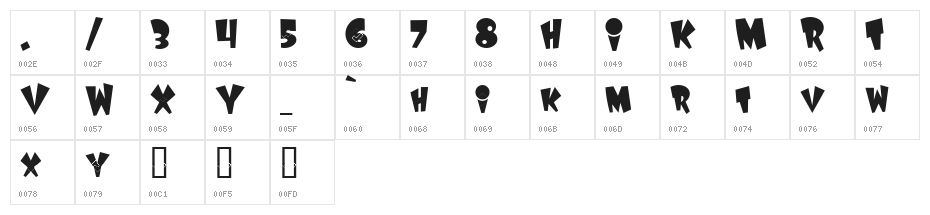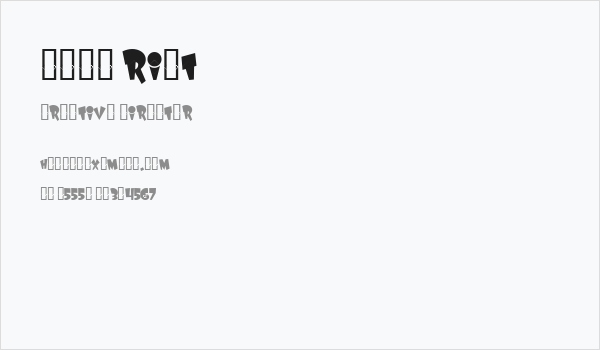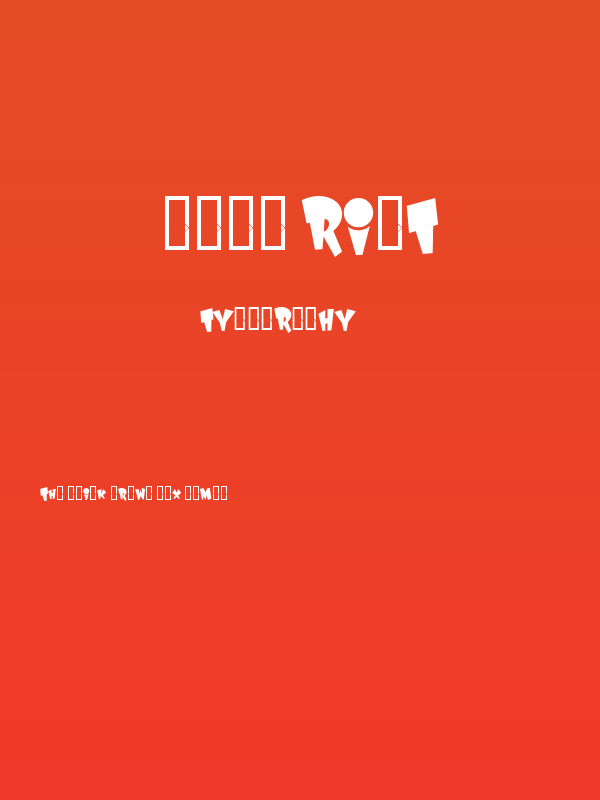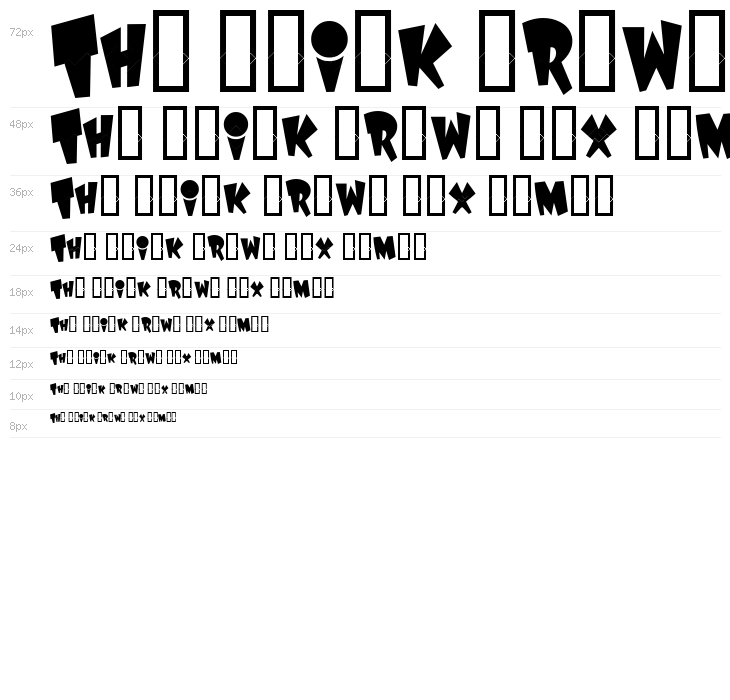
Laff Riot Font
Laff Riot Description
This font features bold, exaggerated characters with a playful and whimsical style. The letters are highly stylized with uneven strokes and varying widths, giving them a cartoonish and dynamic appearance. The overall design is bold and eye-catching, making it suitable for projects that require a fun and lively aesthetic. The characters are tightly spaced, enhancing the energetic feel of the font. The numbers and special characters maintain the same playful style, ensuring consistency across all elements.
| Overall Style | Playful, Cartoonish |
| Proposed Projects | Ideal for children's books, comic strips, party invitations, and playful branding projects. |